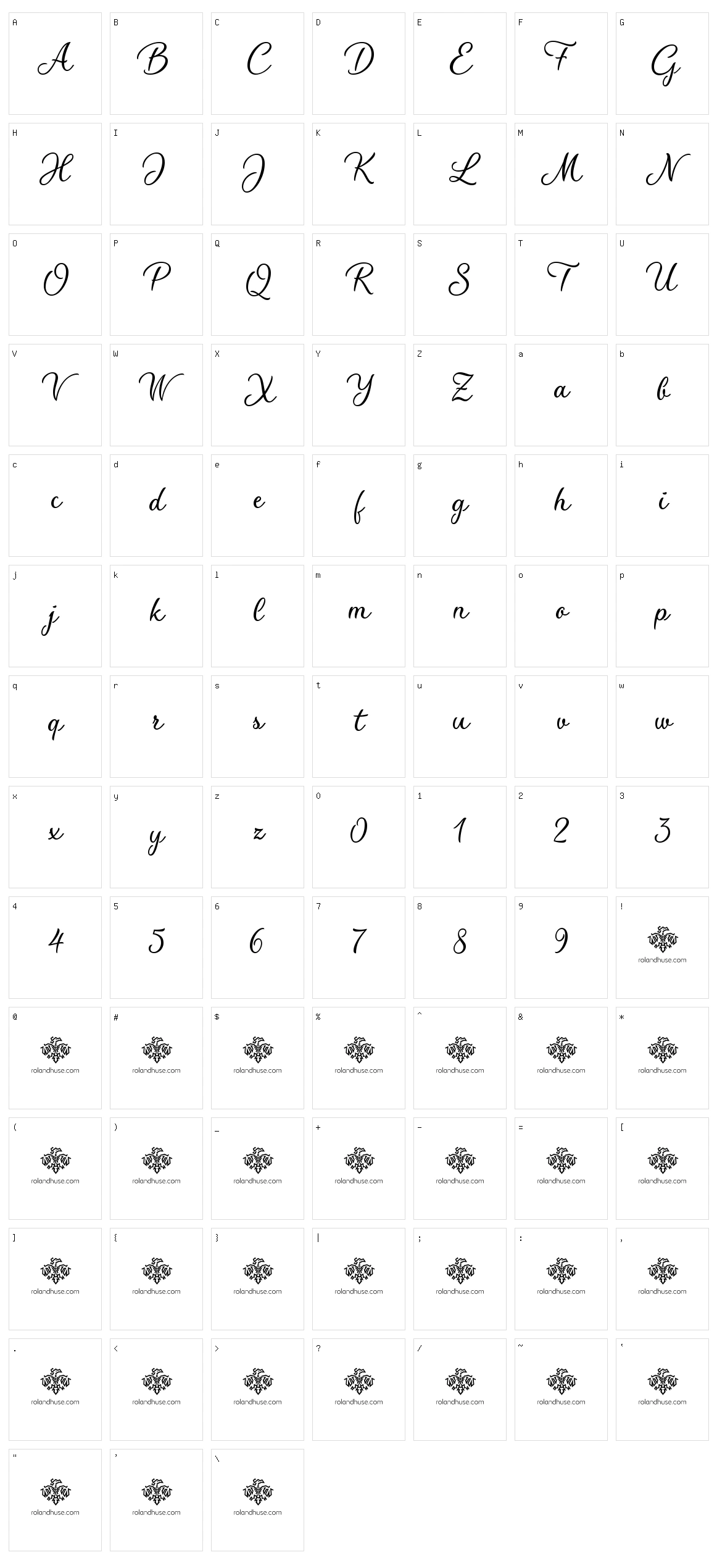
The free font Flores del Sol is carefully designed by Roland Huse Design, showcasing a thoughtful balance of creativity and usability and falls under the Script font style. When you download the ZIP file, it contains only 1731.46 KB of font files, making it lightweight and quick to download. Please review the license details below to understand permitted usage and distribution rights. If license information is not available, we recommend using this font for personal projects only or contacting the author directly for commercial usage permissions.